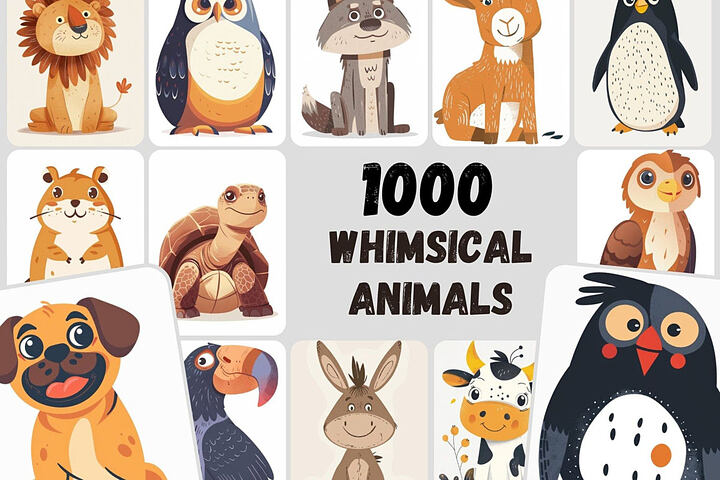
GistX – Free Grunge Font
This cool grunge style font family is from Yellowdesignstudio. You’ll find 12 font alternatives in this bundle. Download and enjoy 😉